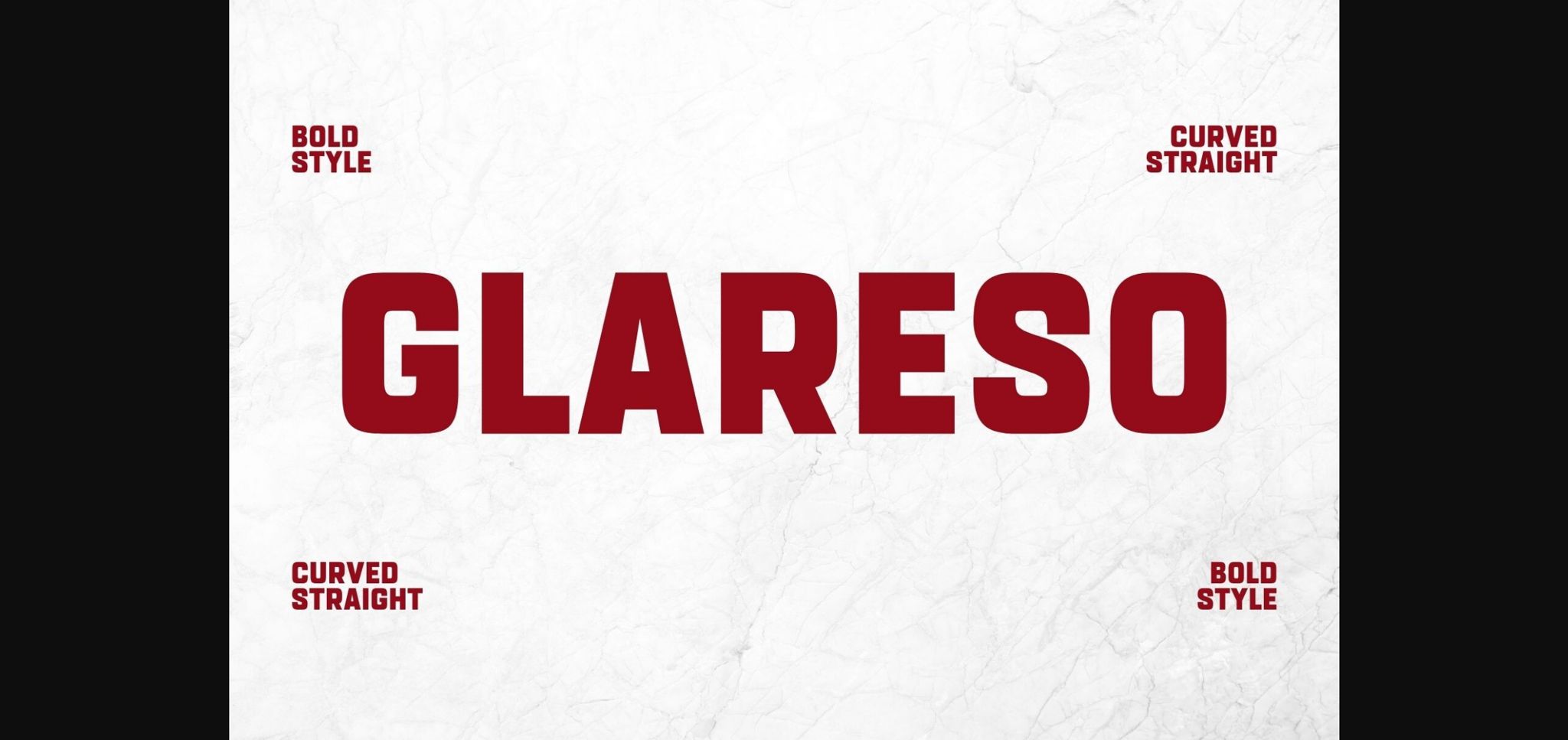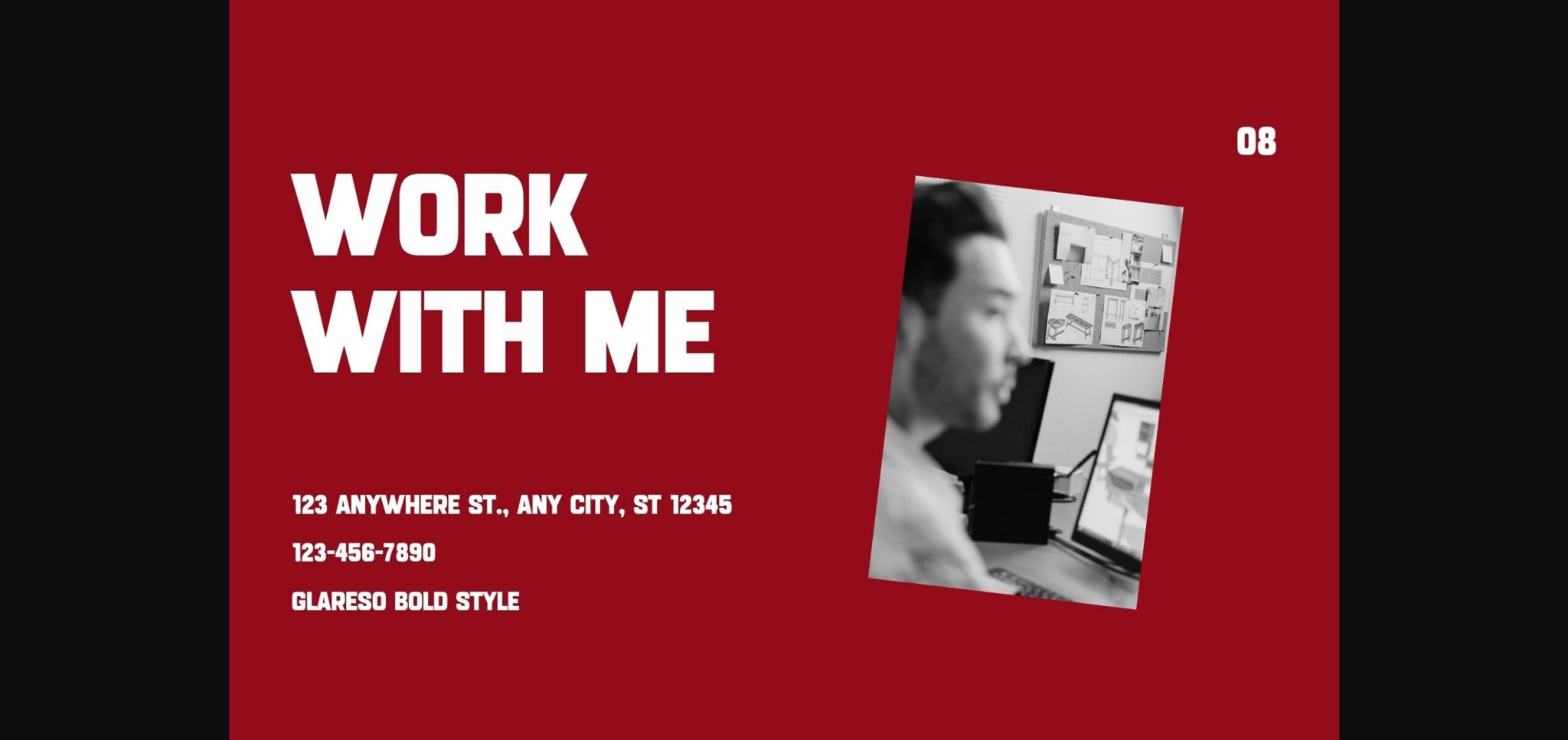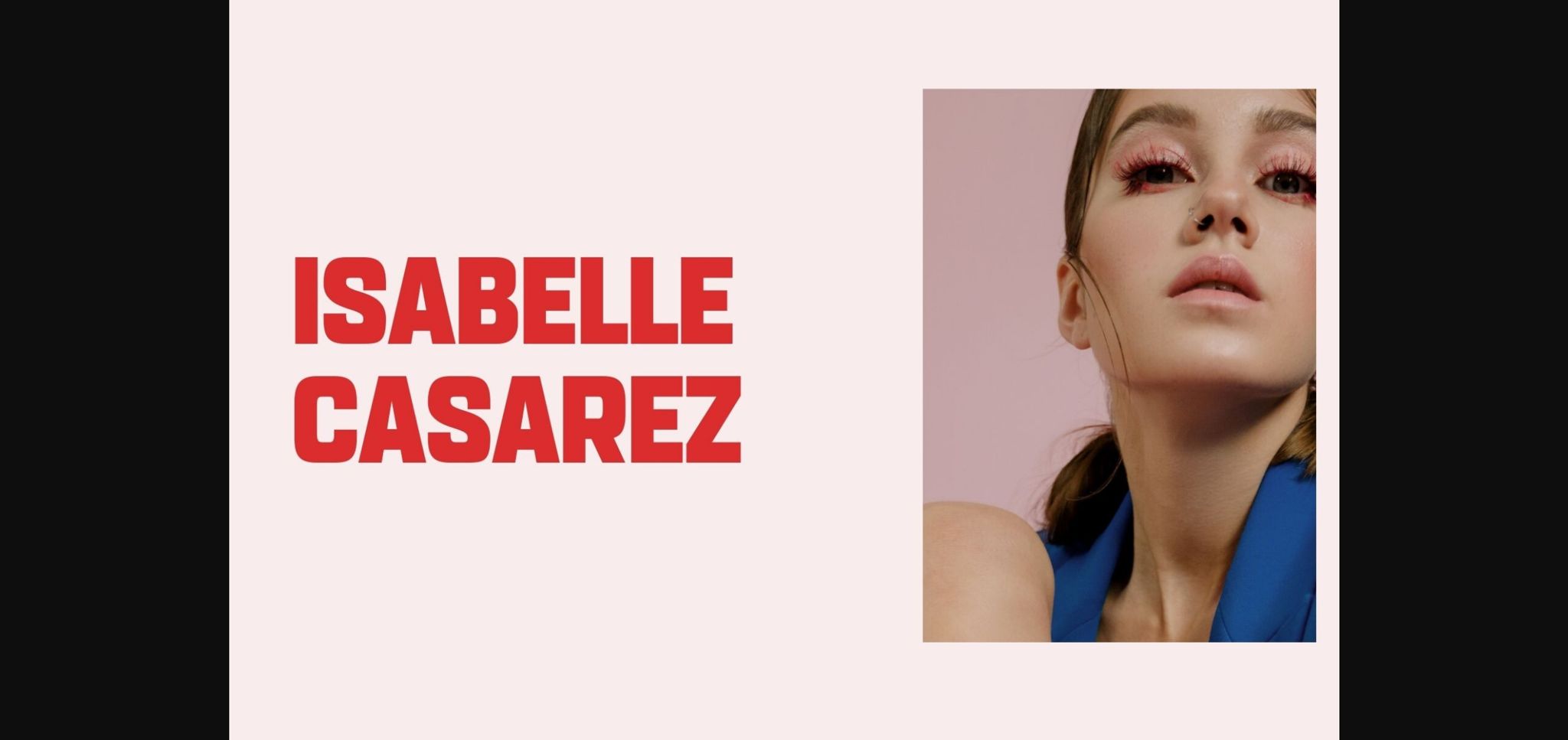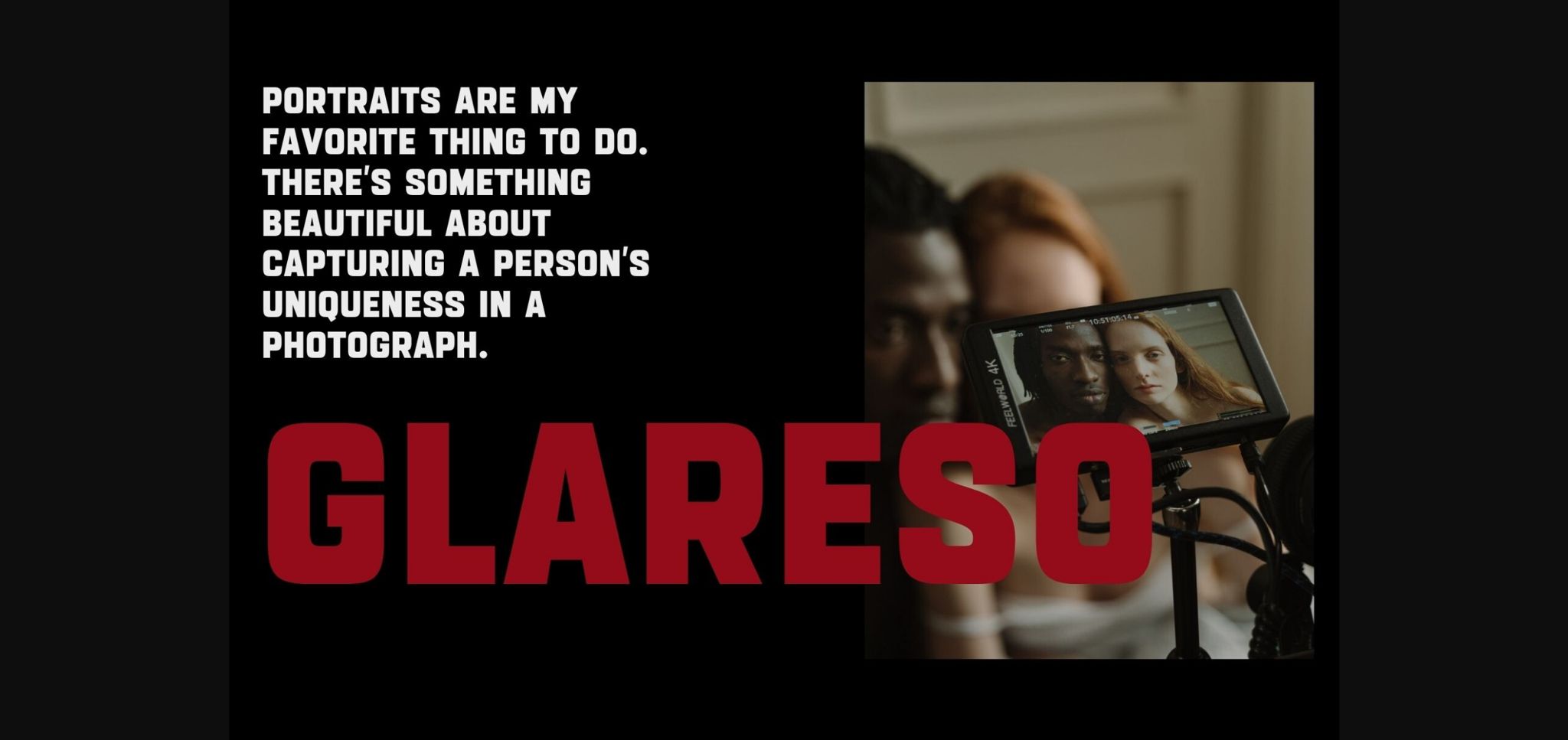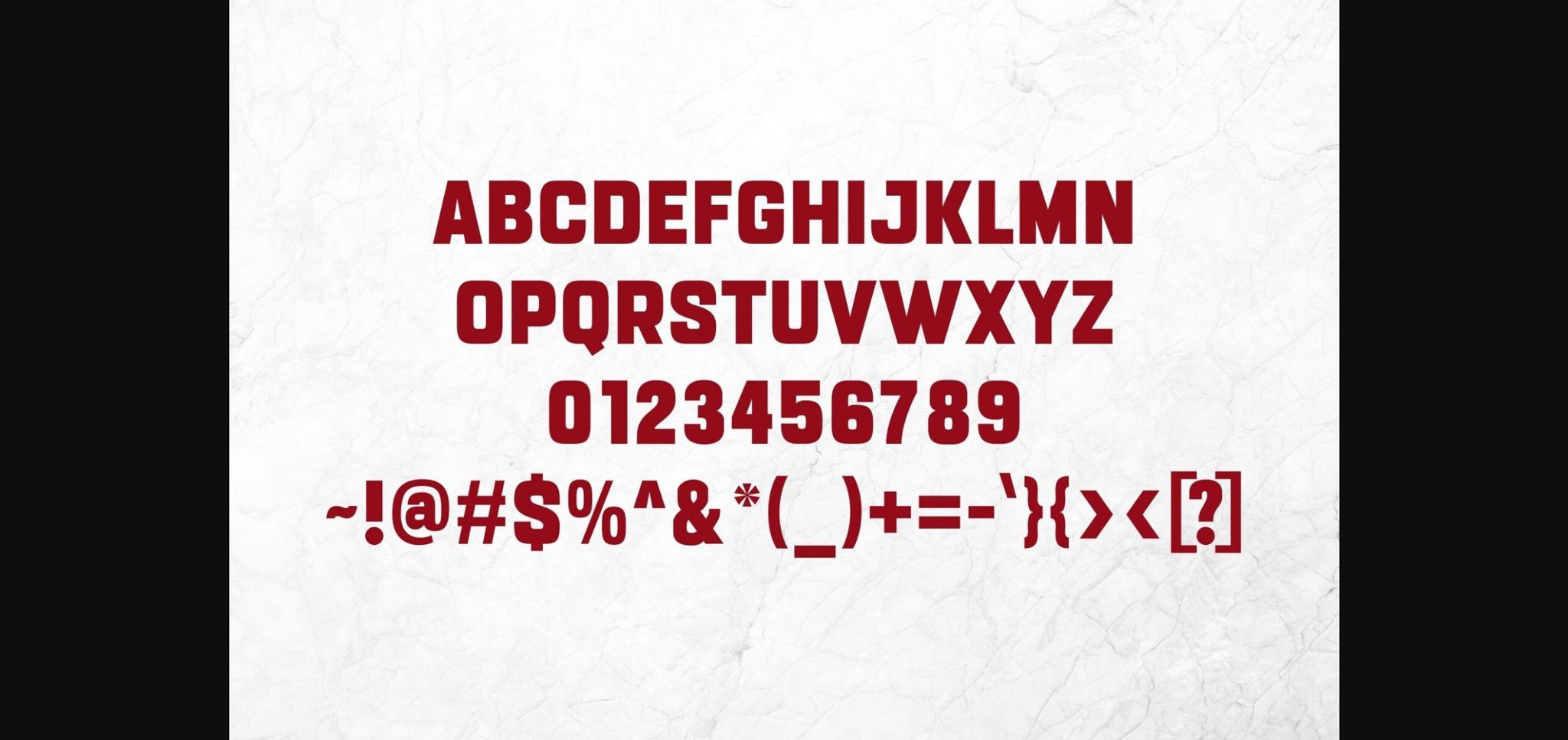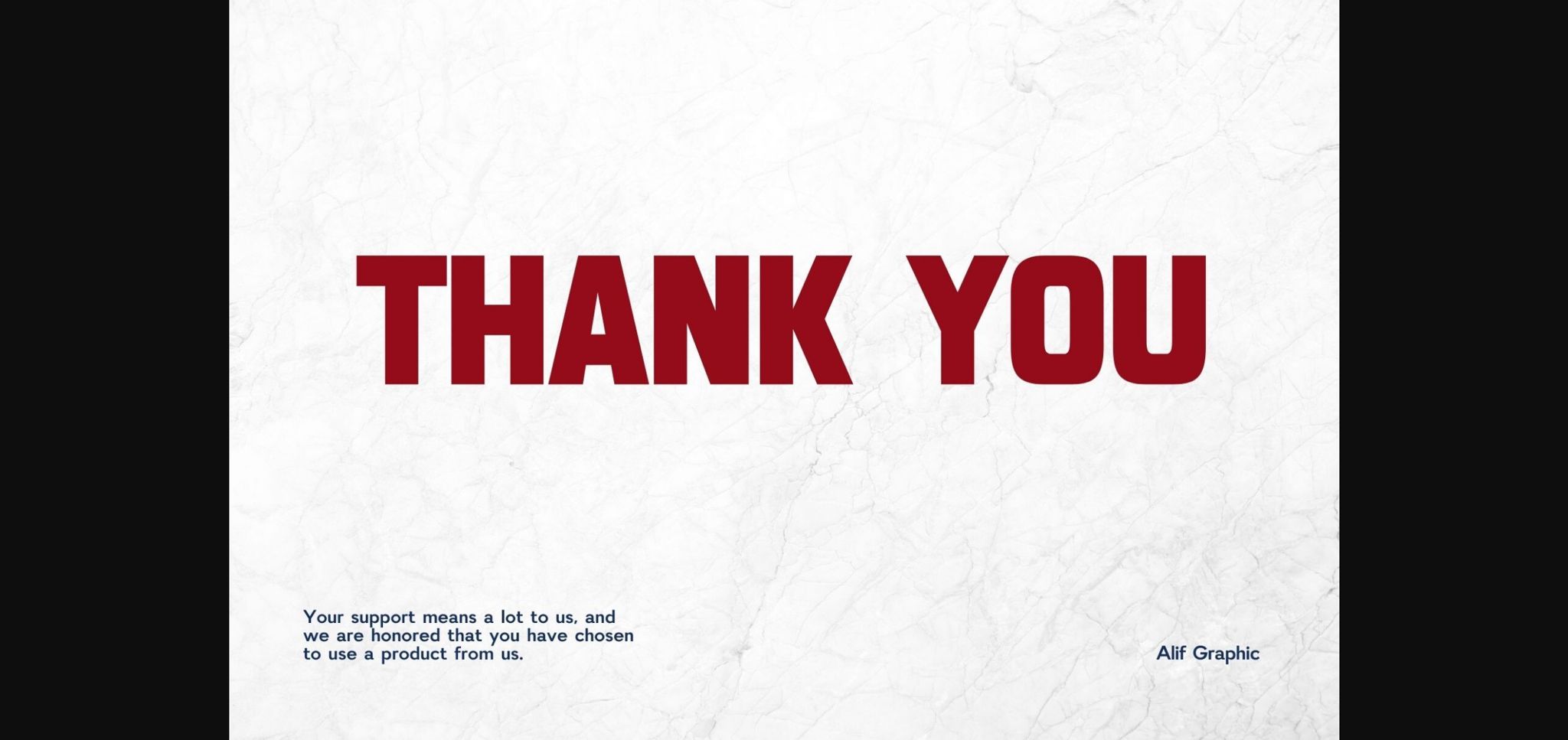
Glareso Font
About Glareso Font
Introducing “Glareso,” a modern and bold sans serif font that effortlessly commands attention. With clean lines and a sleek design, Glareso brings a contemporary sophistication to your projects. Ideal for a wide range of applications, from sleek branding to impactful headlines, Glareso offers a timeless and versatile aesthetic. Elevate your designs with this confident and stylish sans serif font, making a bold statement that captures the essence of modern simplicity.